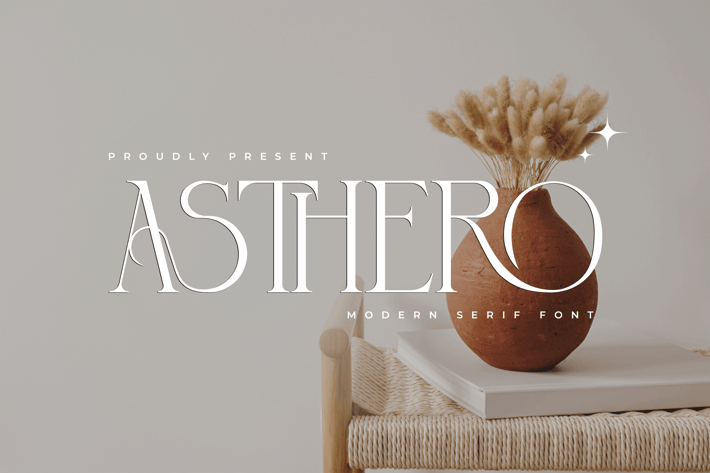
Asthero – A Modern Serif Font
Asthero is a striking modern serif font that combines timeless elegance with a contemporary touch. Designed with precision, this typeface features sleek, refined serifs and a balanced structure that enhances readability while maintaining a bold and sophisticated presence.
Perfect for branding, editorial designs, luxury packaging, and high-end advertising, Asthero exudes class and professionalism. Its versatile letterforms adapt seamlessly to logos, magazines, fashion labels, and creative projects that require a modern yet classic aesthetic.
This font includes uppercase and lowercase characters, numerals, punctuation, and multilingual support, ensuring a seamless experience for global designers. Whether you’re crafting an elegant logo, a refined website, or a stylish book cover, Asthero is the perfect choice for adding a touch of modern sophistication.
Asthero is a striking modern serif font that combines timeless elegance with a contemporary touch. Designed with precision, this typeface features sleek, refined serifs and a balanced structure that enhances readability while maintaining a bold and sophisticated presence.
Perfect for branding, editorial designs, luxury packaging, and high-end advertising, Asthero exudes class and professionalism. Its versatile letterforms adapt seamlessly to logos, magazines, fashion labels, and creative projects that require a modern yet classic aesthetic.
This font includes uppercase and lowercase characters, numerals, punctuation, and multilingual support, ensuring a seamless experience for global designers. Whether you’re crafting an elegant logo, a refined website, or a stylish book cover, Asthero is the perfect choice for adding a touch of modern sophistication.